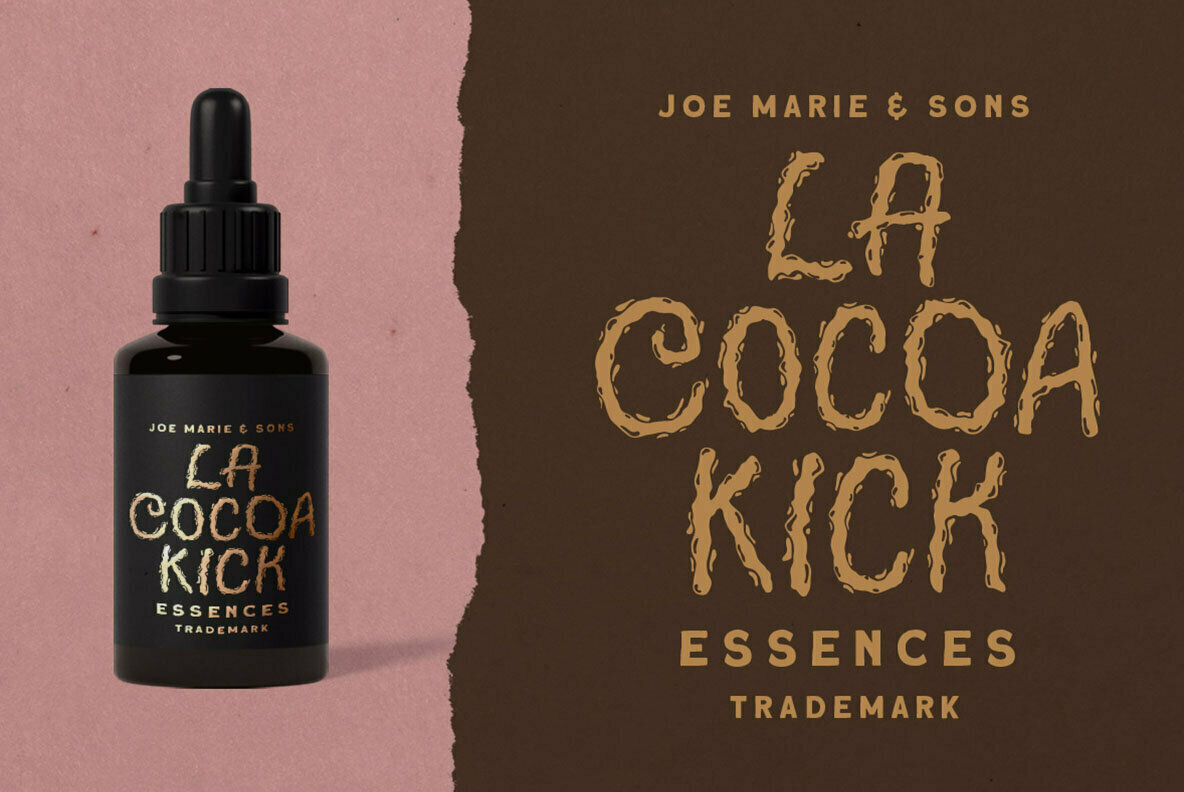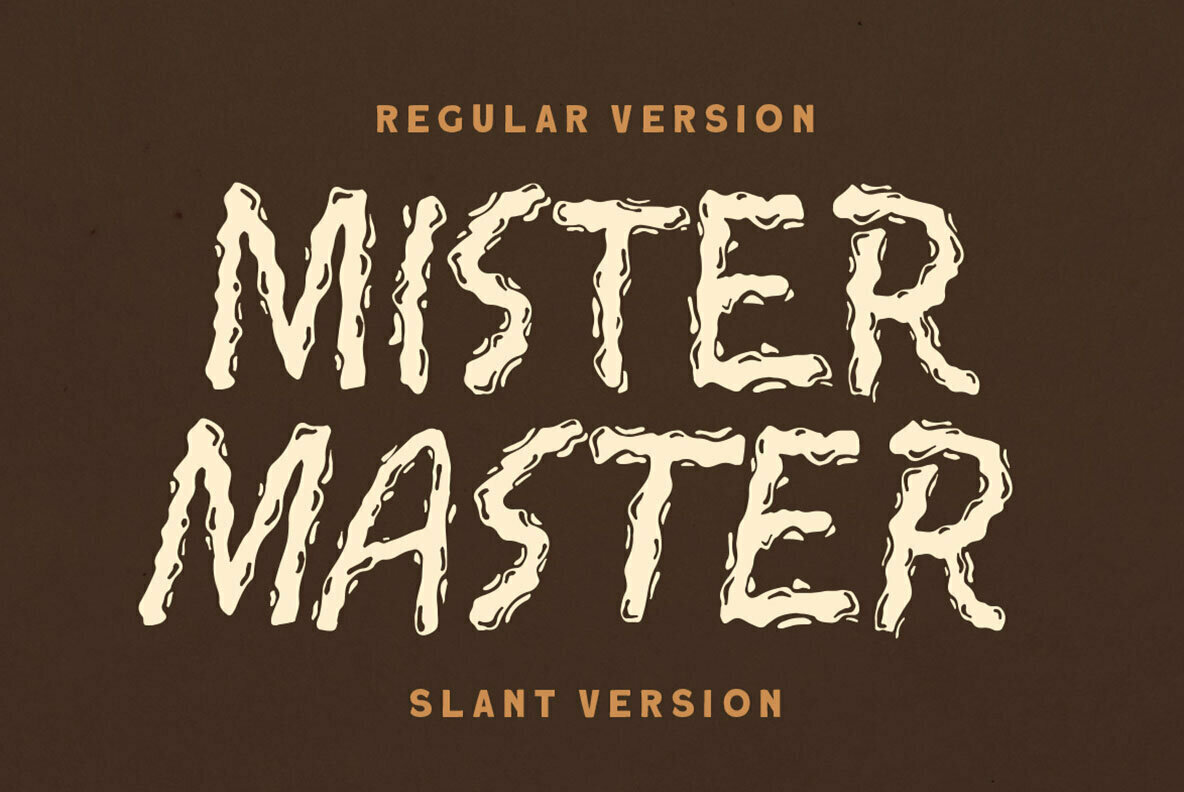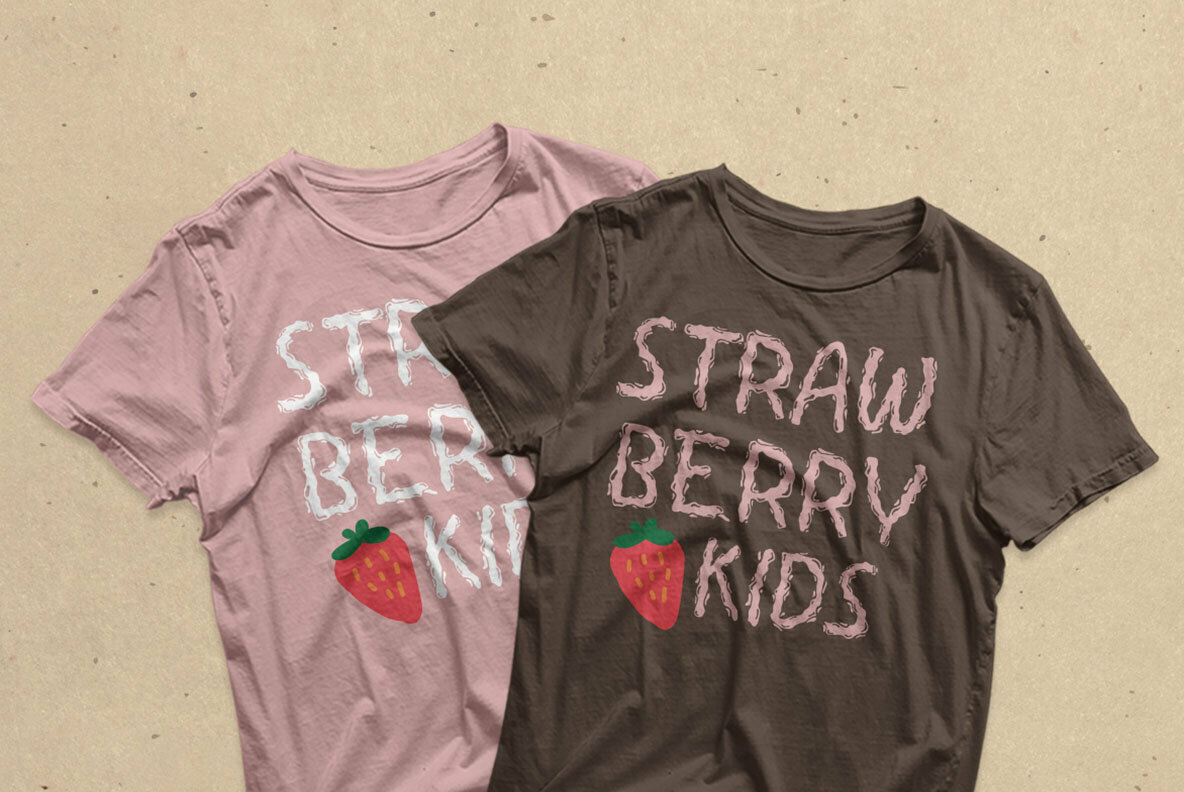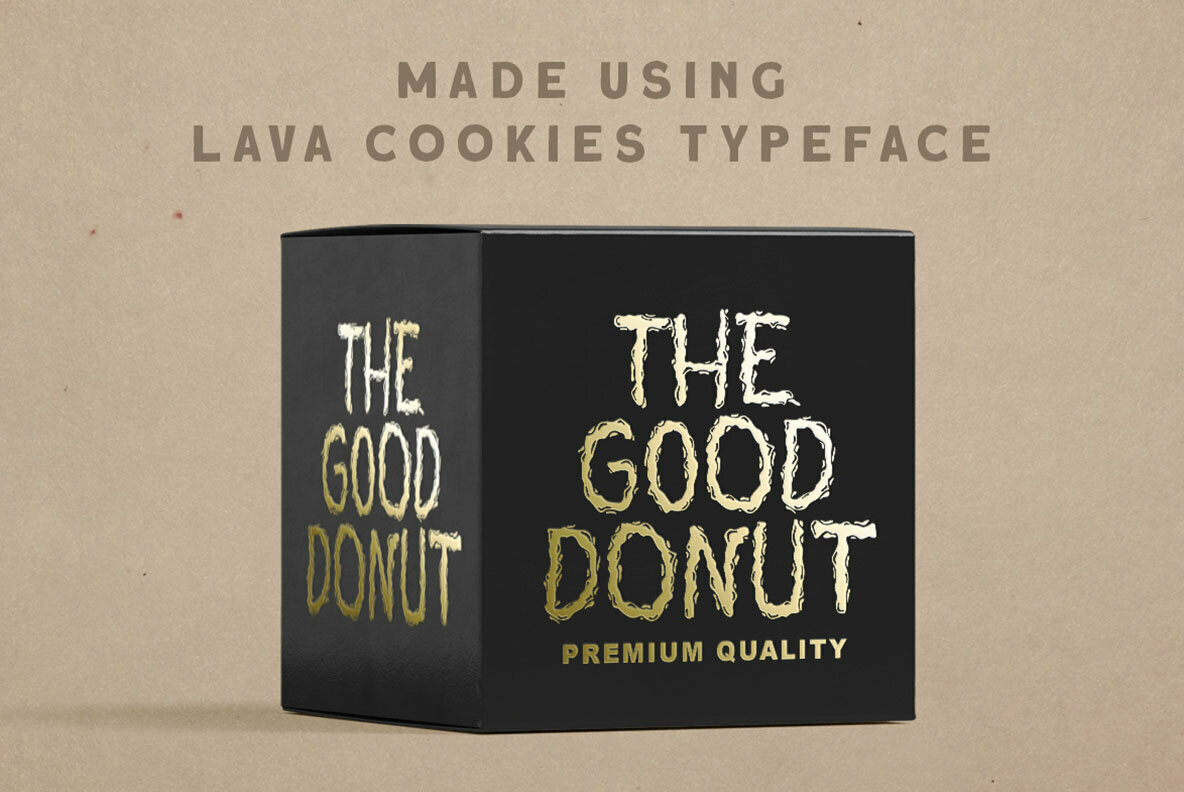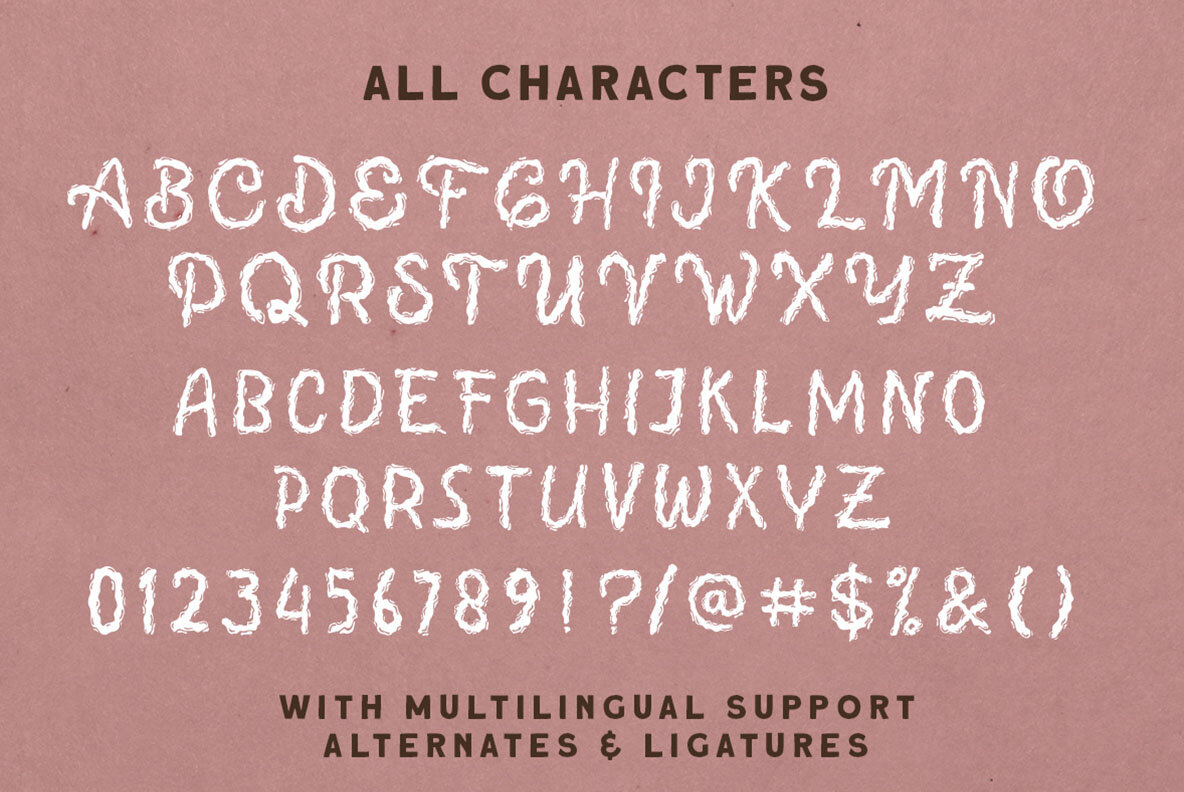
Lava Cookies Font
Introducing, Lava Cookies - A quirky display typeface. The unusual quirky style make this font looks great and standout for tittle, branding, logo, packaging, etc.